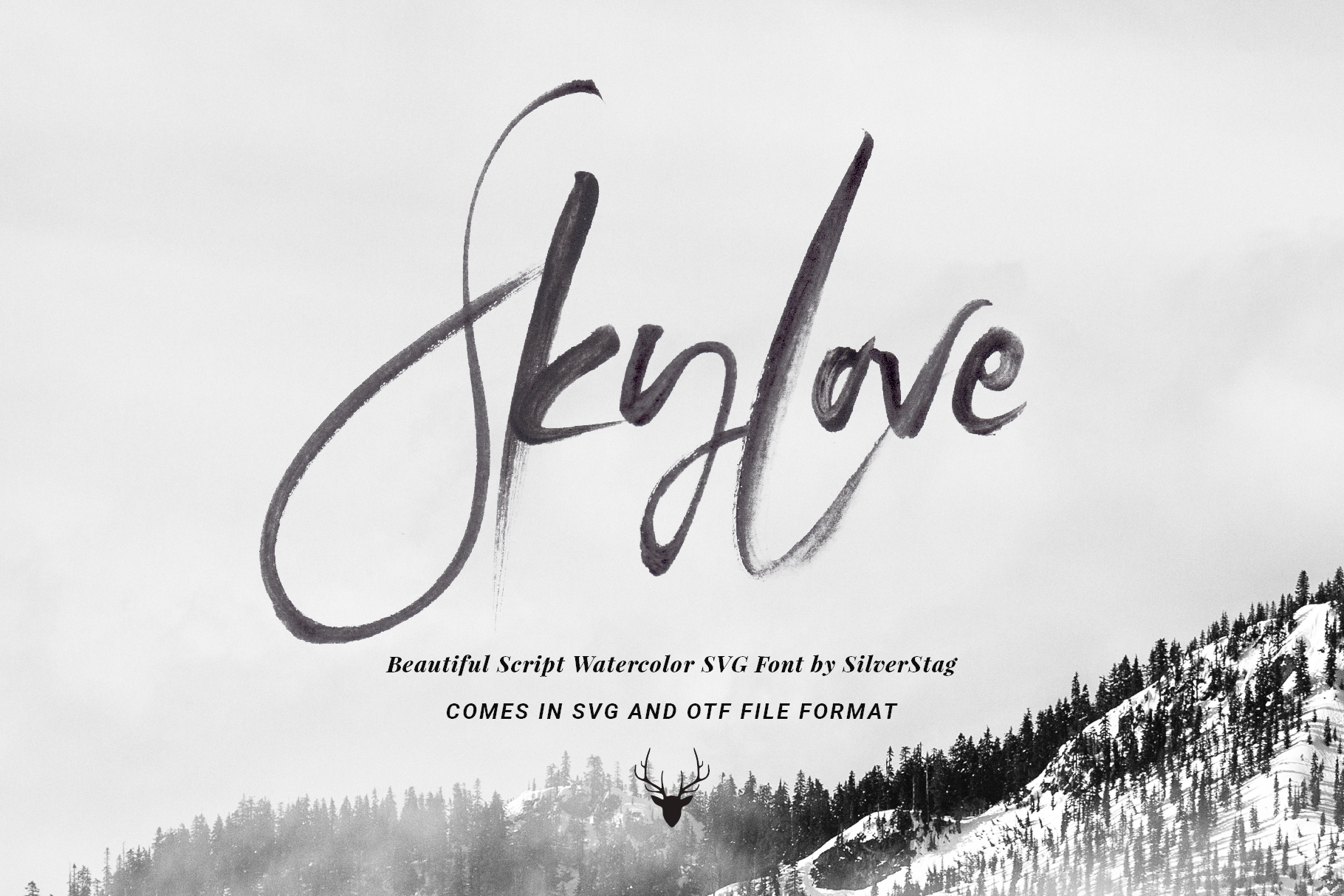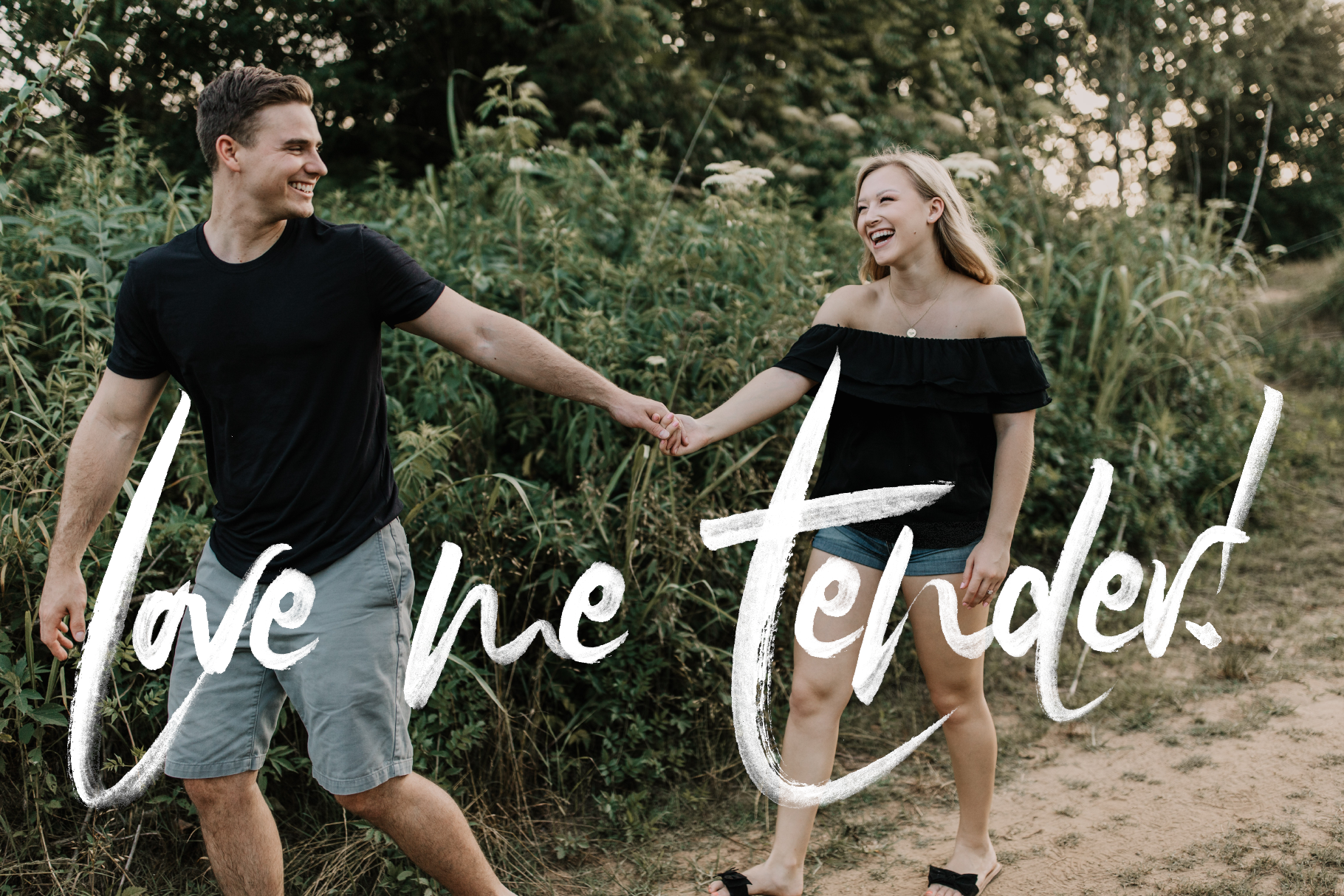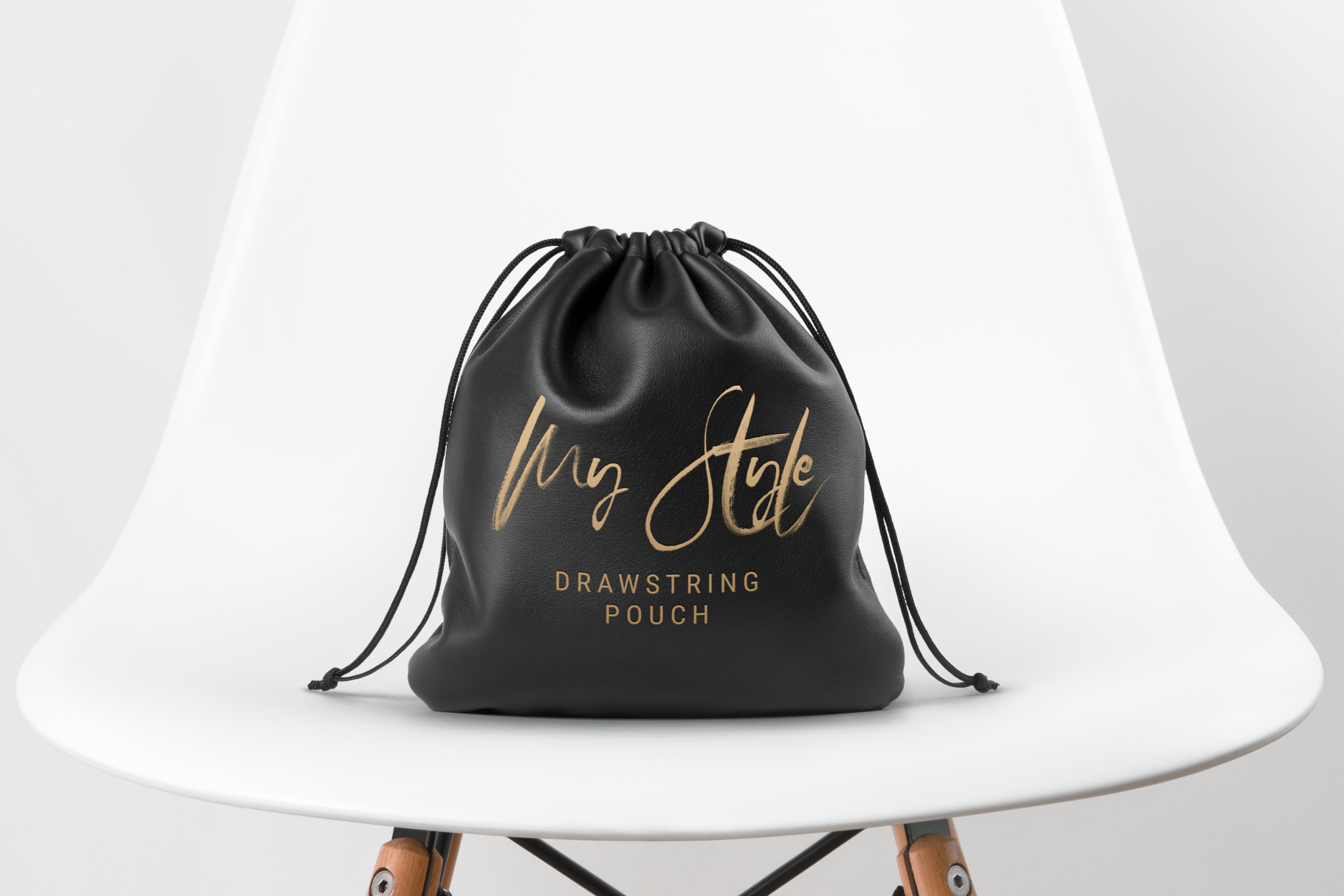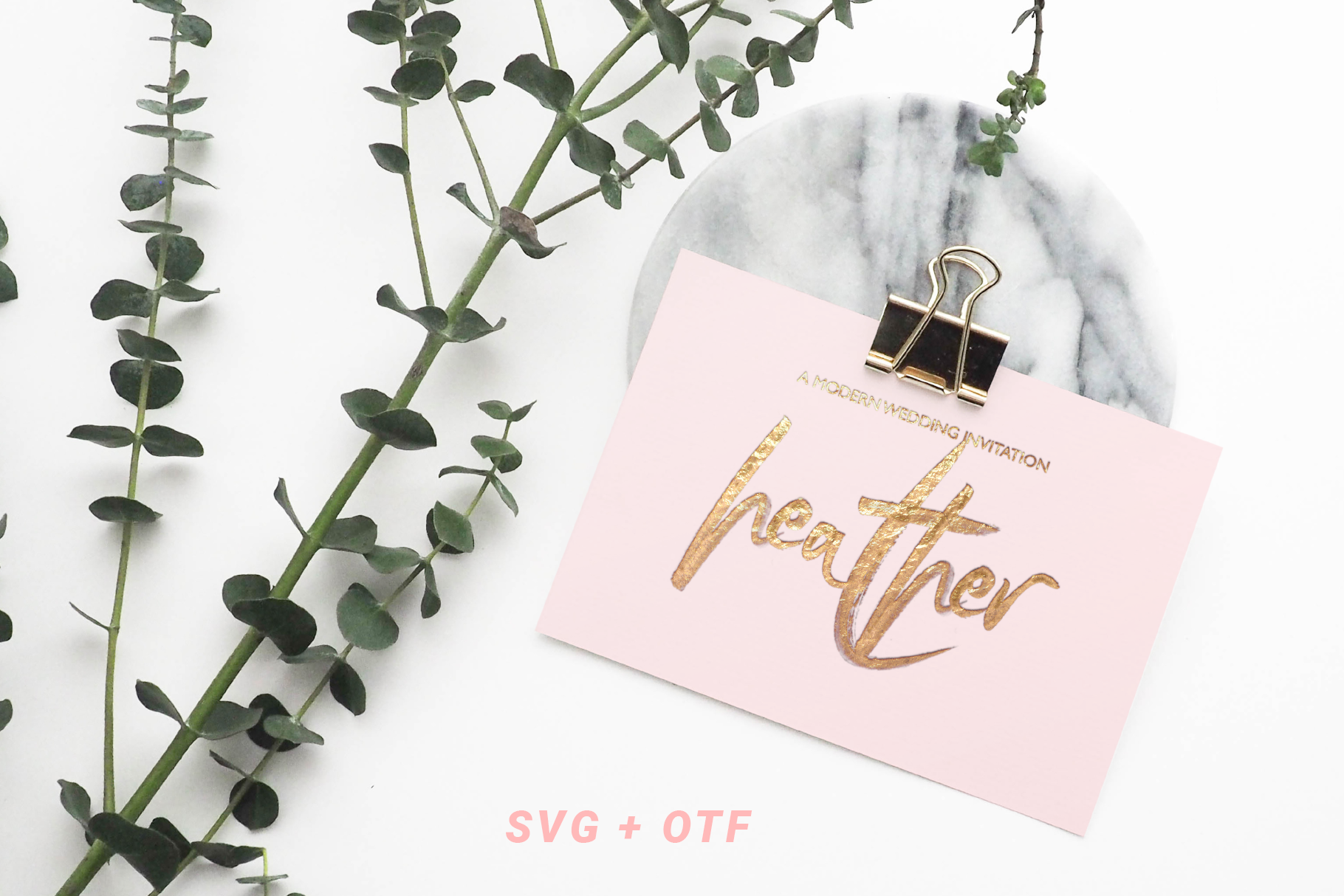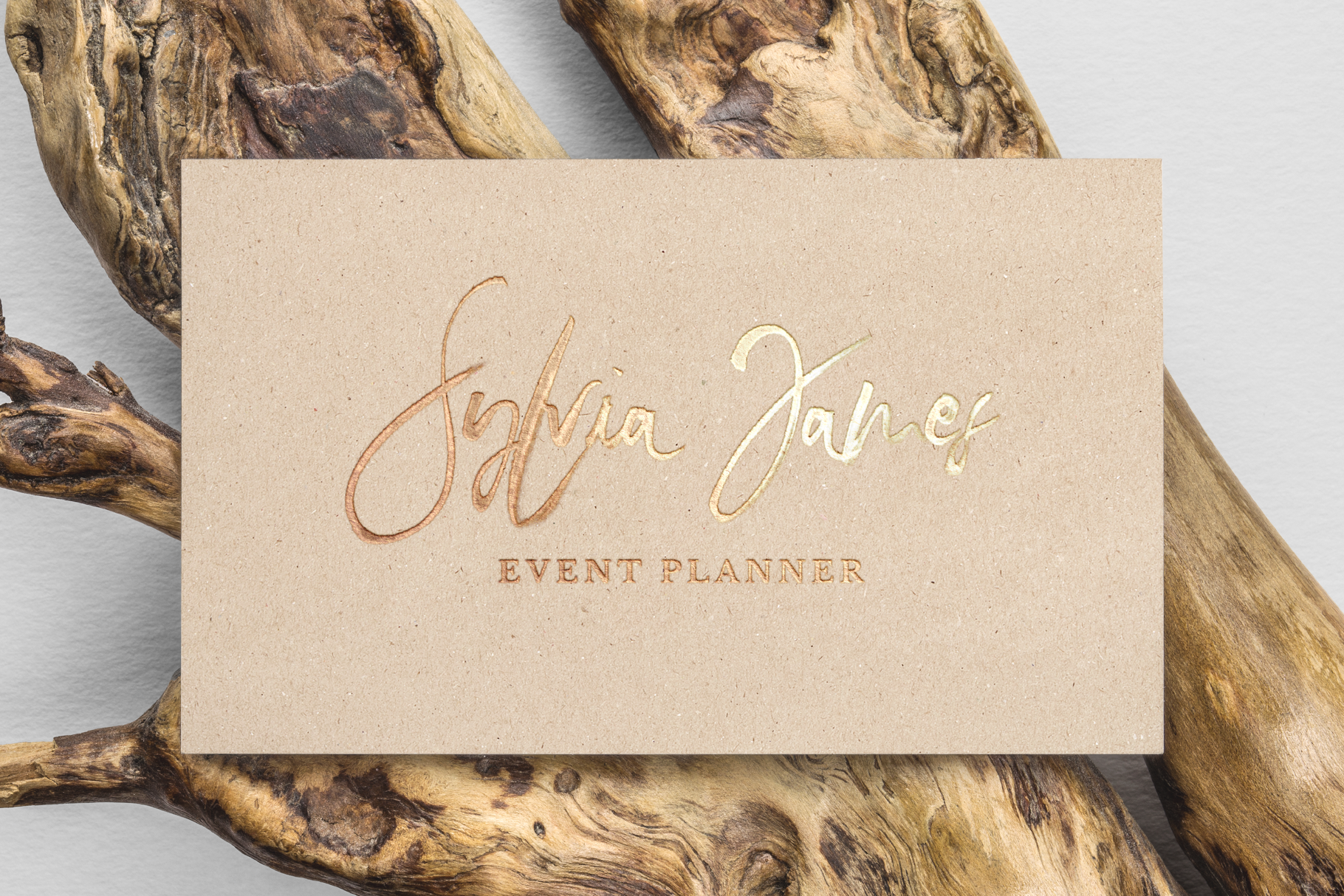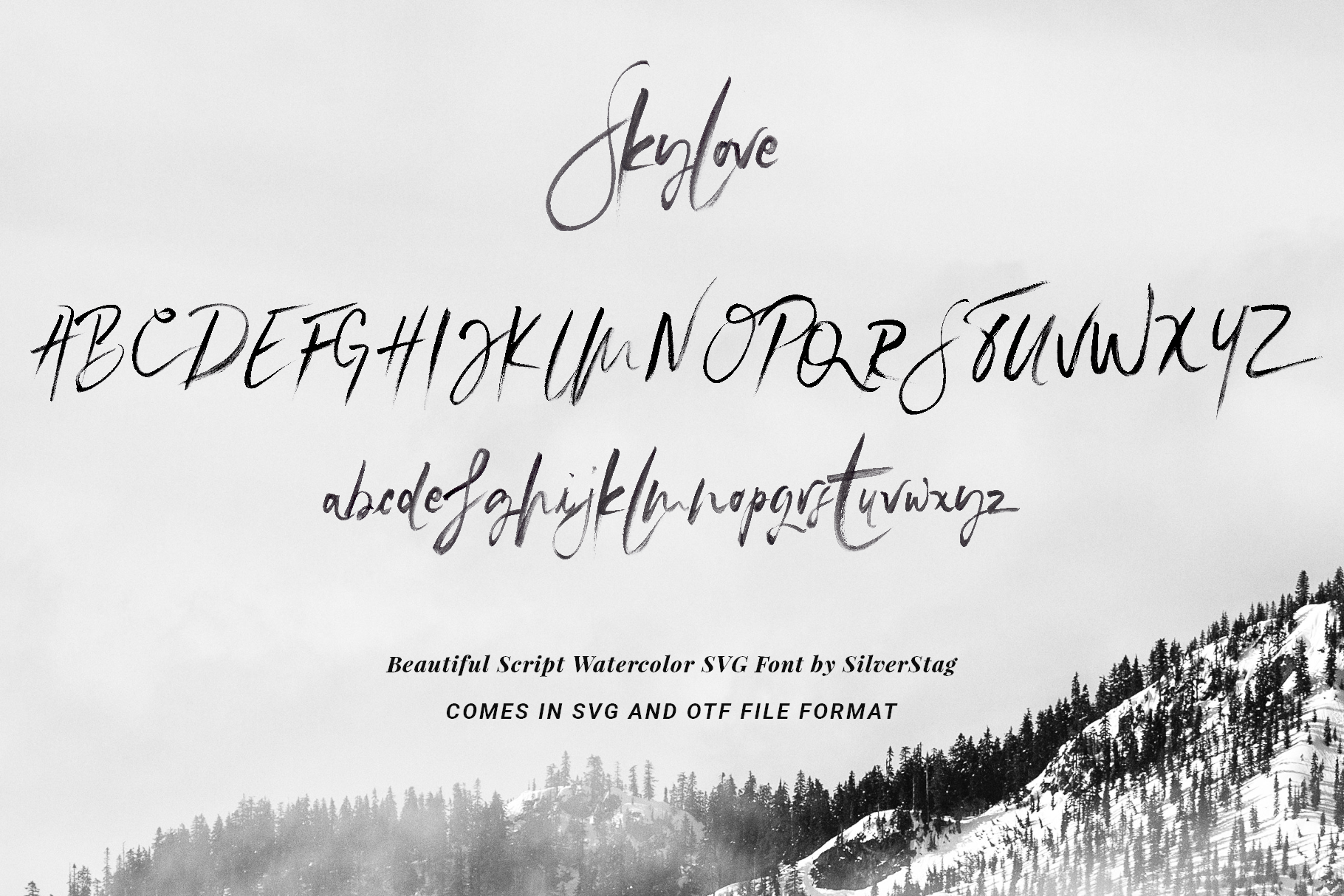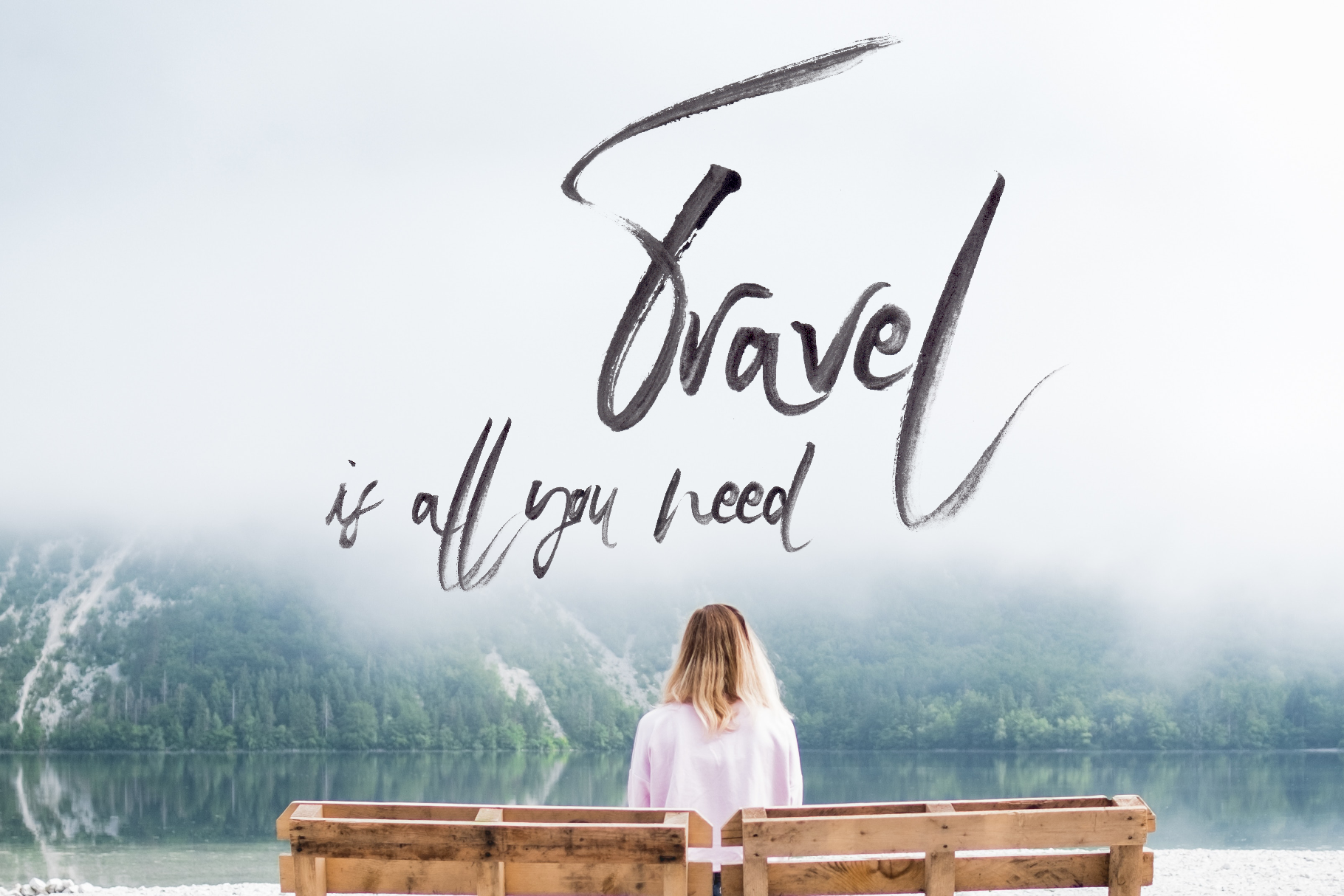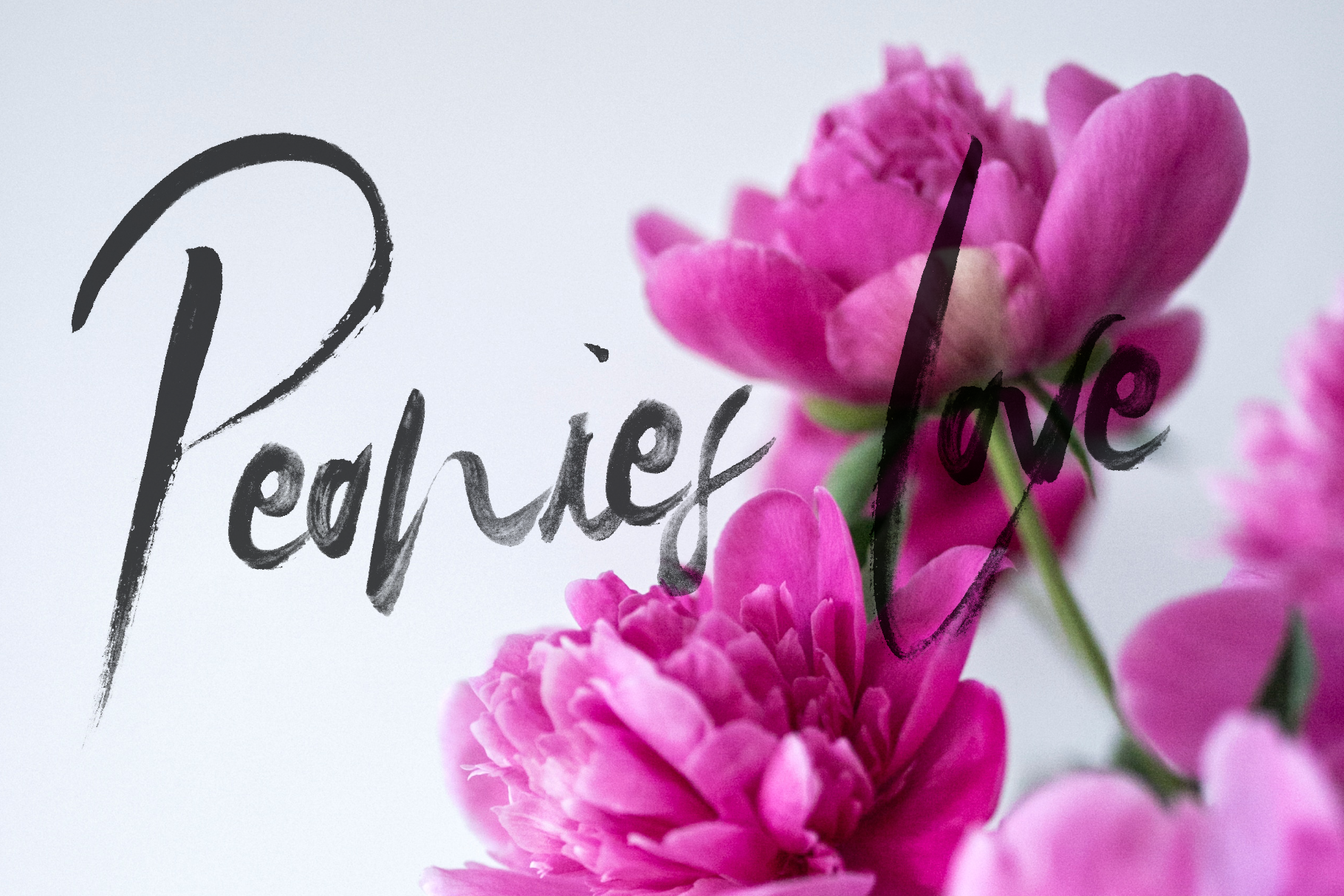
SkyLove is a dreamy and expressive SVG watercolor font that captures the beauty of hand-painted lettering with incredible texture and authenticity. Designed for creatives who want to bring a personal, artistic touch to their designs, SkyLove delivers true watercolor effects directly in your typography.
Perfect for wedding stationery, branding, social media graphics, and editorials, this font combines softness and personality in one beautifully textured typeface.